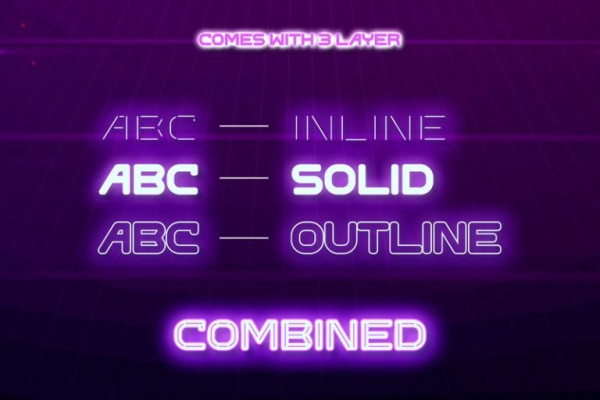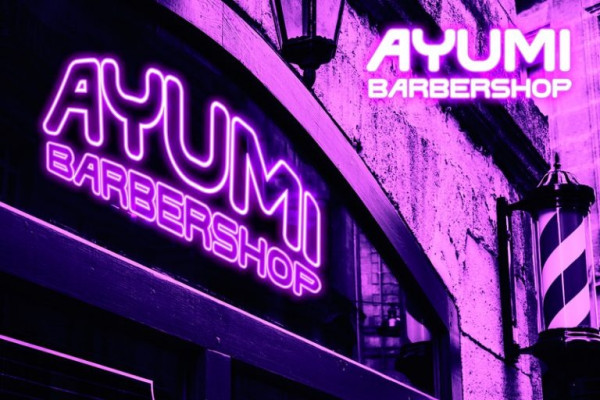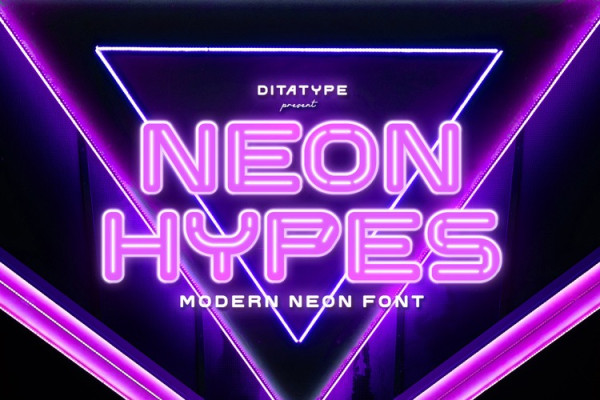
Neon Hypes Font
Neon Hypes Font is an extraordinary display font that combines the captivating elements of outline, solid, and inline styles, all illuminated by a vibrant neon backlight. With its bold uppercase letterforms and dynamic composition, this typeface is designed to mesmerize and captivate the viewer. The most attractive thing about this font lies in its fusion of different design elements. Each letter is meticulously crafted with an outline, solid fill, and inline detail, creating a harmonious blend of aesthetics. This combination adds depth, dimension, and a sense of movement to the font, resulting in a visually striking and unique display. Inspired by the enchanting glow of neon lights, Neon Hypes infuses a sense of vibrancy and energy into each character. The neon backlight further amplifies the font’s allure, casting a radiant glow that evokes the nostalgic charm of illuminated signs. The luminous hue adds an extra layer of visual interest, enhancing the overall composition.
The fusion of outline, solid, and inline elements creates a dynamic and eye-catching display that is perfect for headlines, logos, and impactful titles. Neon Hypes is ideal for designs that seek to make a bold statement with a touch of neon-inspired flair. Whether you’re creating posters, branding materials, digital artwork, or anything in between, this font will add a mesmerizing and unforgettable element. It particularly shines in applications related to nightlife, entertainment, gaming, and futuristic themes, where it adds a futuristic edge. Find out more ways to use this font by taking a look at the font preview.